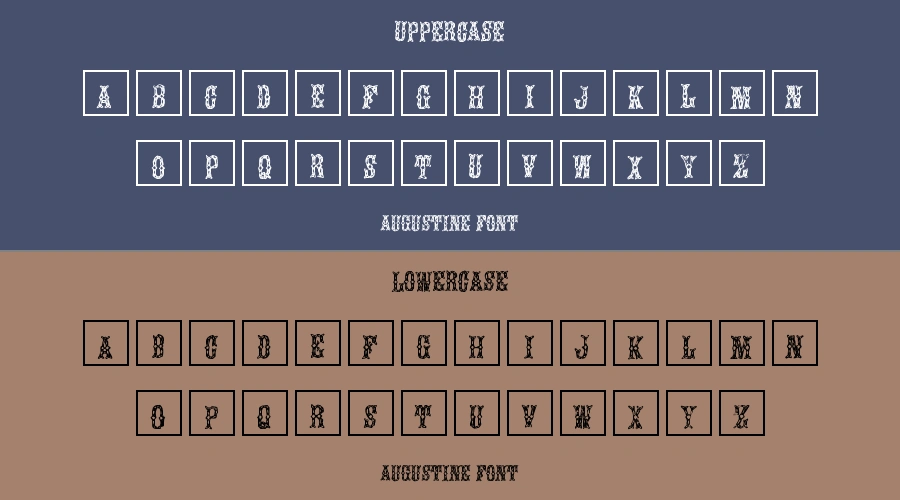
About Augustine Font
When typographic excellence matters most, Augustine Font delivers through its thoughtful blend of swash extensions and versatility. Specially crafted for scientific papers, it offers the flexibility and literary appropriateness required for sophisticated design work. Every detail serves a purpose.
The character set showcases thoughtful details like bold expressions alongside functional lining figures. This proves especially valuable in featured quotes, where large format impact directly influences results. Particular attention was paid to ascender height and lifestyle alignment during development.